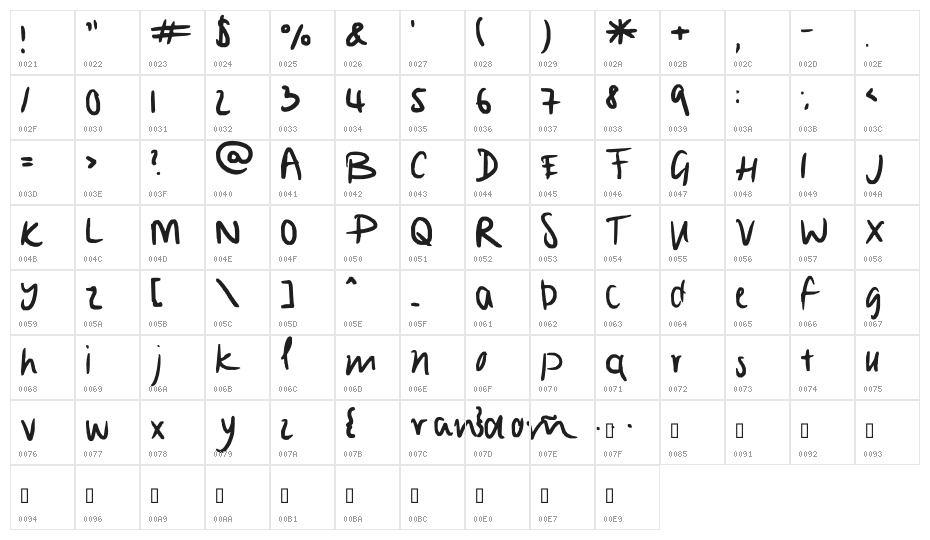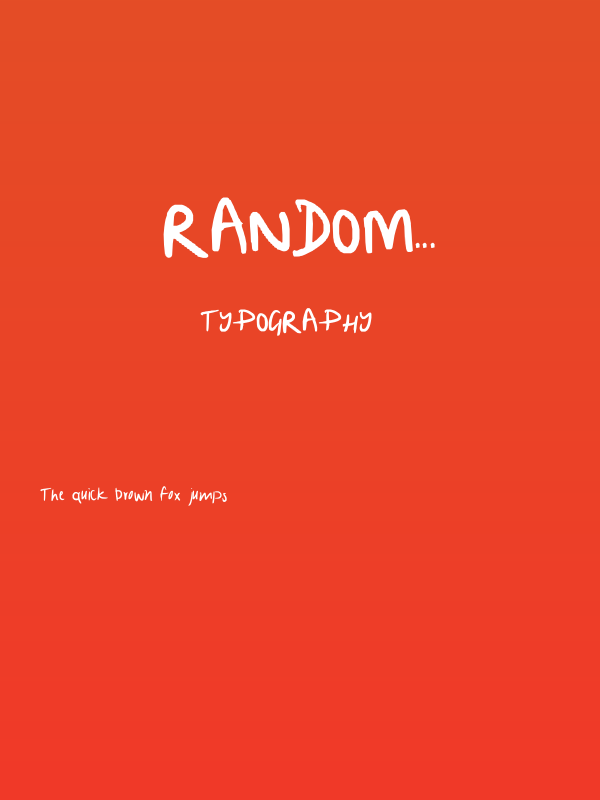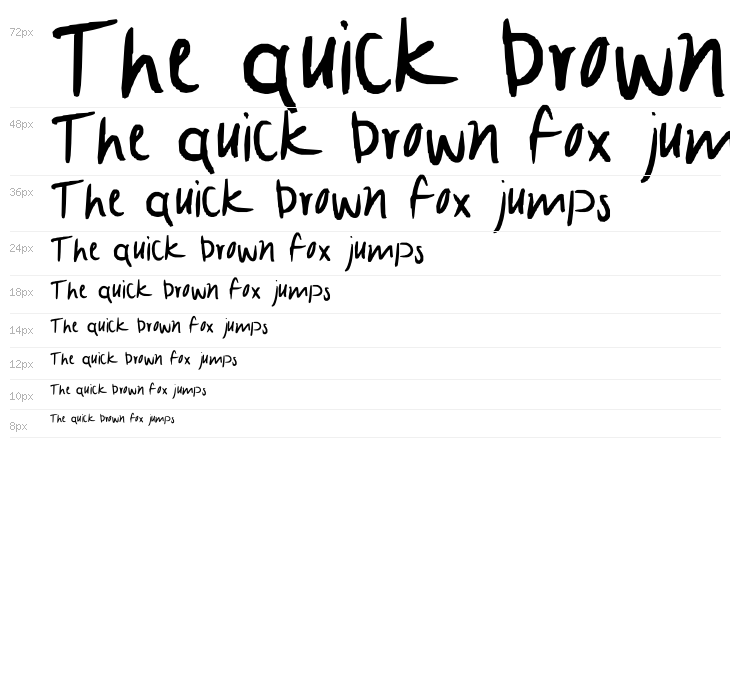
random... Font
random... Description
This font features a bold, handwritten style with a casual and expressive appearance. The letters are uneven and slightly irregular, giving it a personal and informal feel. The strokes are thick and consistent, contributing to a strong visual impact. The uppercase and lowercase letters maintain a cohesive style, while the numerals and special characters blend seamlessly with the alphabet. This font's playful and dynamic nature makes it suitable for creative projects that require a touch of personality.